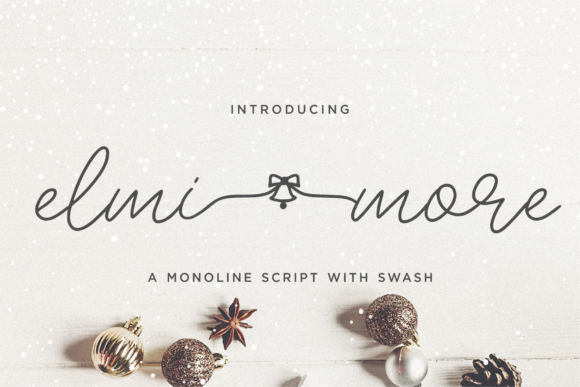
Introducing Elmimore Font: A Magical Script Font with a Touch of Elegance
In the world of typography, fonts play a crucial role in conveying messages, expressing emotions, and creating a lasting impression. Among the numerous fonts available, Elmimore Font stands out as a magical script font that embodies elegance and sophistication. In this article, we will explore the features, benefits, and uses of Elmimore Font, and why it’s a must-have for designers, writers, and artists.
What is Elmimore Font?
Elmimore Font is a carefully crafted script font that exudes a sense of luxury and refinement. Its unique design makes it perfect for a wide range of applications, from creative projects to commercial use. The font’s elegance is evident in its flowing lines, intricate details, and beautiful swashes.
Key Features of Elmimore Font
- PUA Encoding: Elmimore Font is PUA (Private Use Area) encoded, which means that it has a unique set of glyphs and swashes that can be accessed with ease. This feature allows designers to create stunning text arrangements and add a personal touch to their work.
- Magical Script Design: The font’s script design is reminiscent of magical and whimsical worlds, making it perfect for projects that require a touch of fantasy and imagination.
- Elegant and Refined: Elmimore Font’s elegant and refined design makes it suitable for high-end projects, such as luxury branding, advertising, and editorial design.
Benefits of Using Elmimore Font
Using Elmimore Font can elevate your design work and provide several benefits, including:
- Unique and Creative: Elmimore Font’s distinctive design ensures that your work stands out from the crowd and captures the attention of your audience.
- Time-Saving: The font’s PUA encoding and extensive glyph library save you time and effort, allowing you to focus on other creative aspects of your project.
- Versatile: Elmimore Font can be used for a wide range of applications, from digital design to print materials, making it a valuable addition to your font library.
Uses of Elmimore Font
Elmimore Font’s versatility makes it suitable for various design projects, including:
- Branding and Logo Design: The font’s elegant and refined design makes it perfect for luxury branding and logo design.
- Editorial Design: Elmimore Font is ideal for editorial design, such as magazine and newspaper articles, where its elegant design can add a touch of sophistication.
- Digital Design: The font can be used for digital design projects, such as website headers, social media graphics, and mobile app interfaces.
- Art and Illustration: Elmimore Font’s magical script design makes it a great choice for art and illustration projects, such as typographic posters and quotes.
Tips and Tricks for Using Elmimore Font
To get the most out of Elmimore Font, here are some tips and tricks:
- Experiment with Swashes: Elmimore Font’s extensive swash library allows you to add a personal touch to your design. Experiment with different swashes to create unique text arrangements.
- Mix and Match: Combine Elmimore Font with other fonts to create a unique and creative typography. The font’s elegant design pairs well with sans-serif fonts.
- Adjust Font Size and Color: Elmimore Font’s design is versatile, and adjusting the font size and color can create different effects and moods.
Elmimore Font is a magical script font that embodies elegance and sophistication. Its PUA encoding, extensive glyph library, and beautiful swashes make it a valuable addition to any designer’s font library. With its versatility and creative possibilities, Elmimore Font is perfect for a wide range of design projects, from branding and editorial design to digital design and art illustration. Whether you’re a designer, writer, or artist, Elmimore Font is a must-have font that can elevate your work and add a touch of magic to your creations.